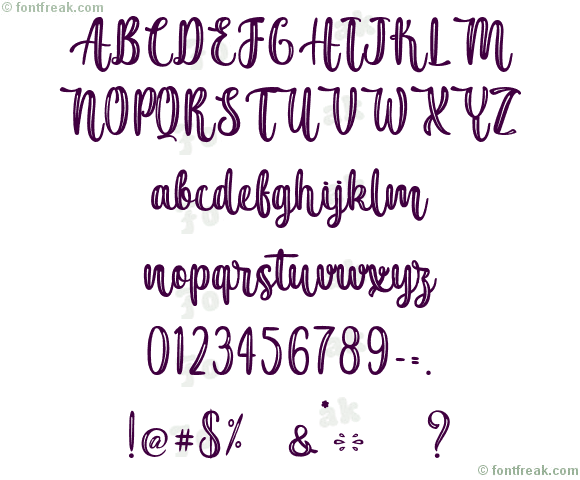
SushiKingPersonalUse
SushiKingPersonalUse is a charming handwritten font designed by Suthi Srisopha, falling into the decorative category. This font exudes a casual, playful vibe with its unique strokes and flowing, organic lines. The character set features a light stroke weight, which lends it an airy feel, while the slight contrast between thick and thin lines adds to its visual appeal. The spacing is thoughtfully executed, ensuring readability without sacrificing its artistic flair. Decorative elements, such as whimsical curves and loops, bring a delightful personality to the typeface, making it stand out in various applications.
Ideal for a range of creative projects, the SushiKingPersonalUse font shines in settings such as restaurant menus, where its playful nature can enhance the dining experience. It is also an excellent choice for wedding invitations, bringing a touch of warmth and charm to special occasions. Other use cases include branding for small businesses, particularly in the food and beverage industry, as well as event flyers and social media graphics that aim to capture attention. This font appeals to graphic designers, small business owners, and content creators looking to add a personal touch to their work.
What sets the SushiKingPersonalUse font apart is its ability to evoke a sense of joy and informality, making it versatile for both professional and personal projects. Its unique style captures the essence of casual elegance, inviting viewers to engage with the text on a deeper level. For those interested, the SushiKingPersonalUse font free download makes it accessible for anyone wanting to incorporate this delightful typeface into their creative toolkit. This font is not just a tool; it's an expression of creativity and personality.